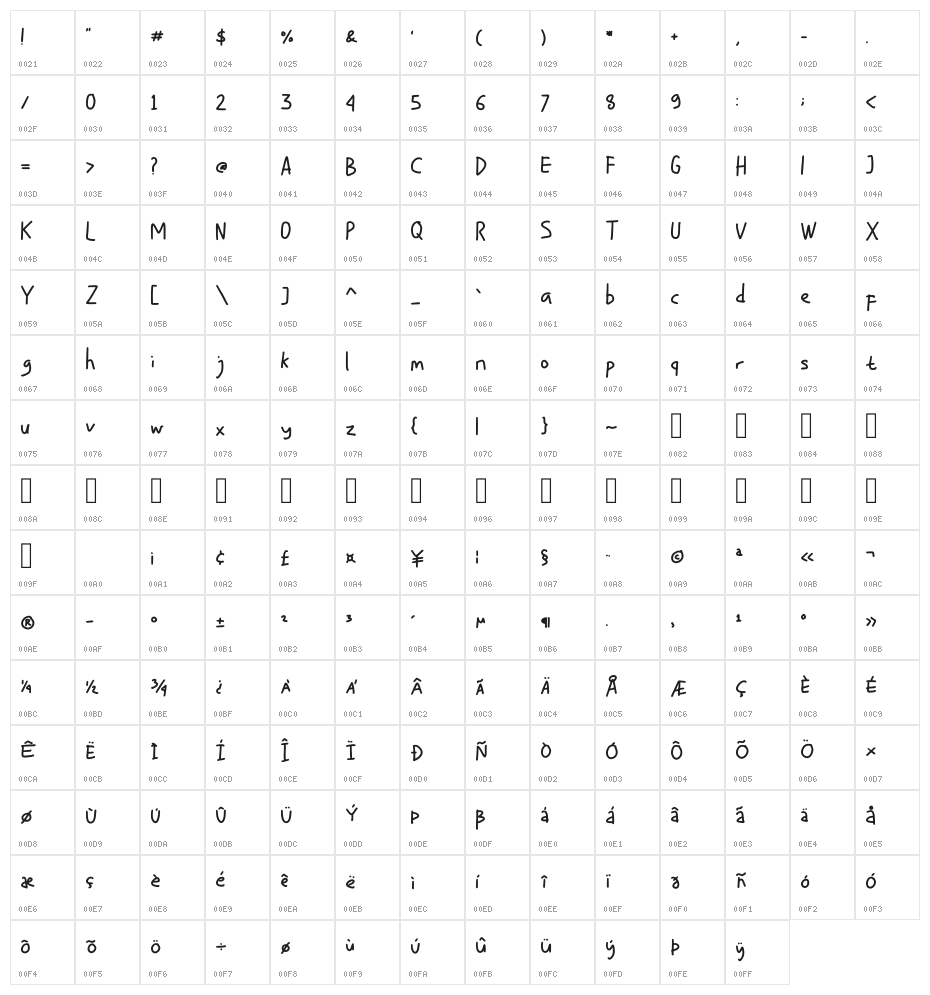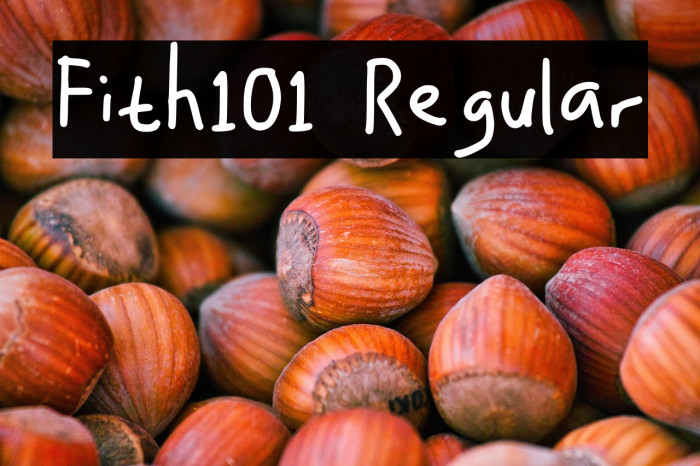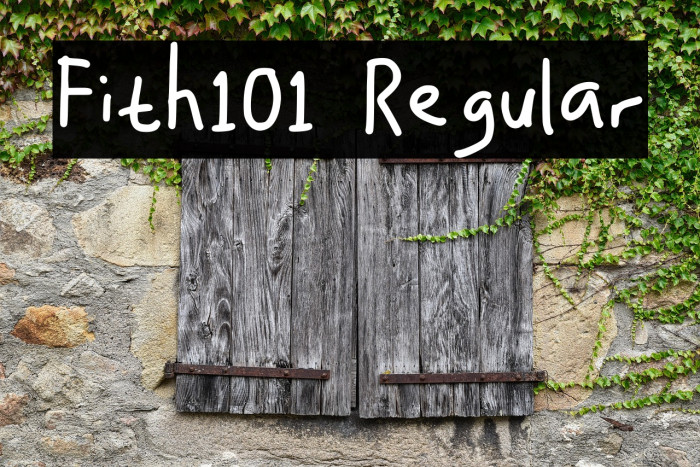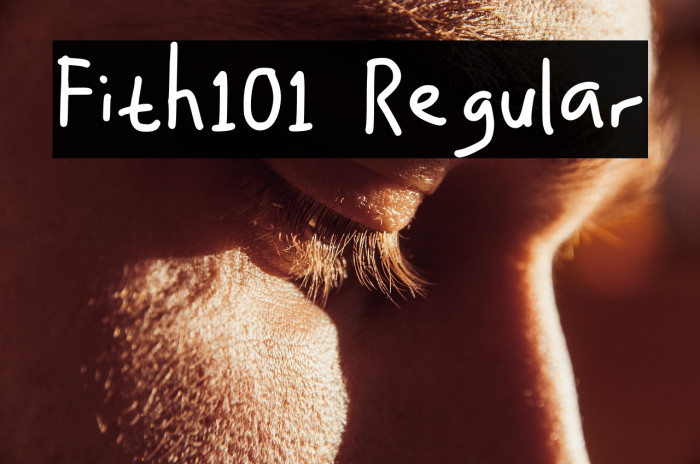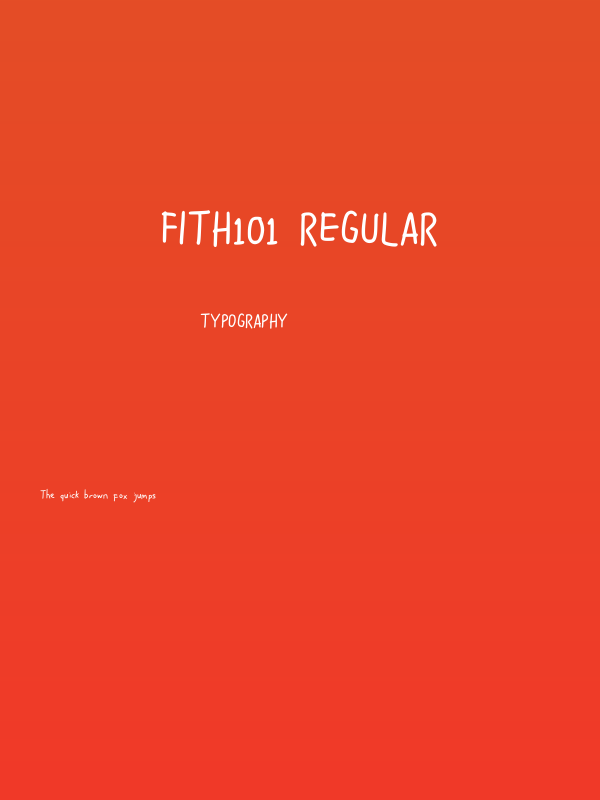
Fith101 Regular Font
Fith101 Regular Description
A playful, handwritten font with a casual and informal style, featuring irregular strokes and a friendly appearance.
| Overall Style | Casual |
| Use Case | Headlines, Informal text, Creative projects |
| Proposed Projects | Greeting cards, children's books, casual invitations. |